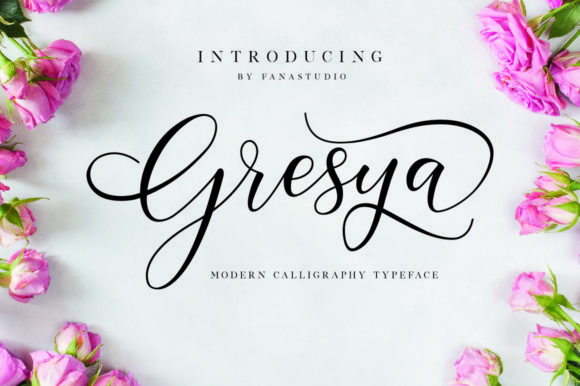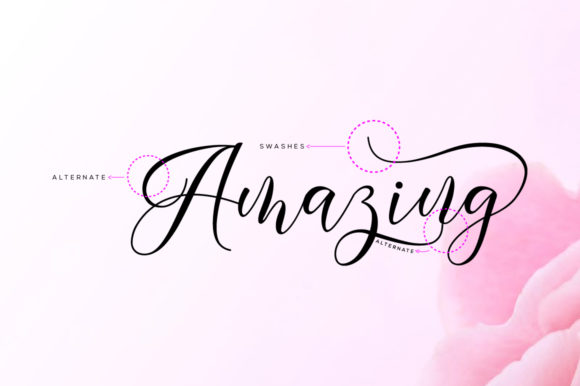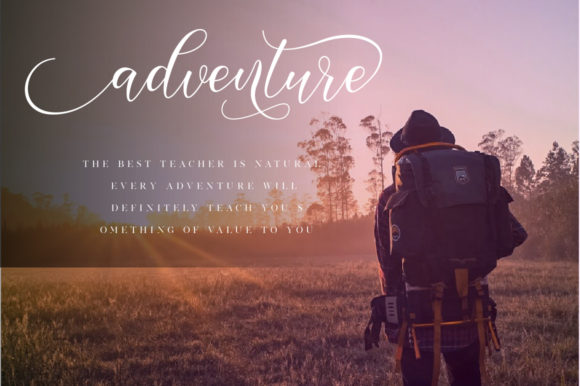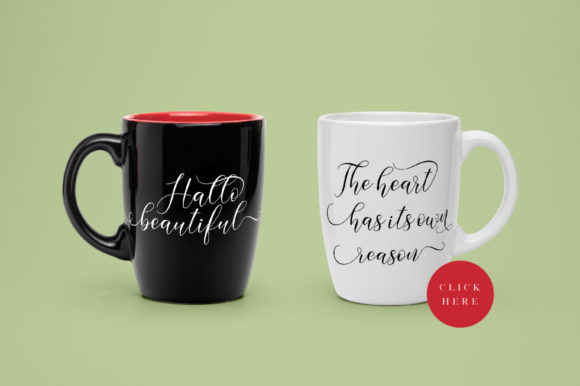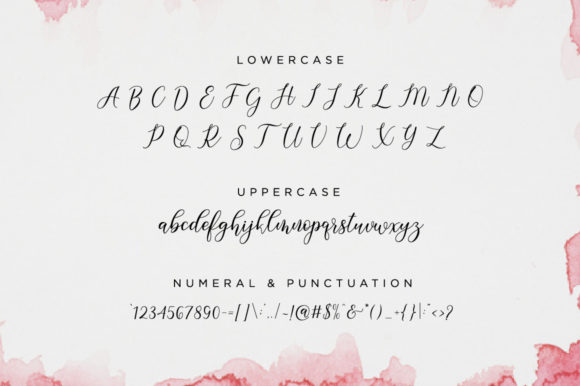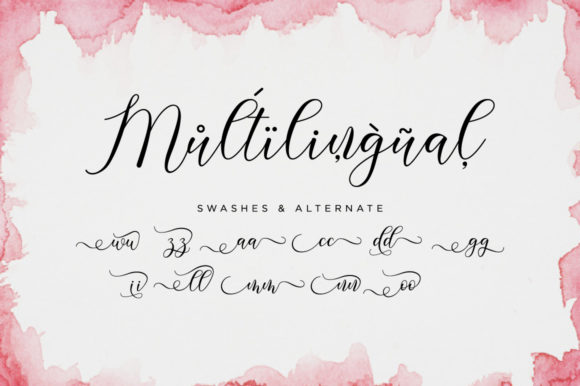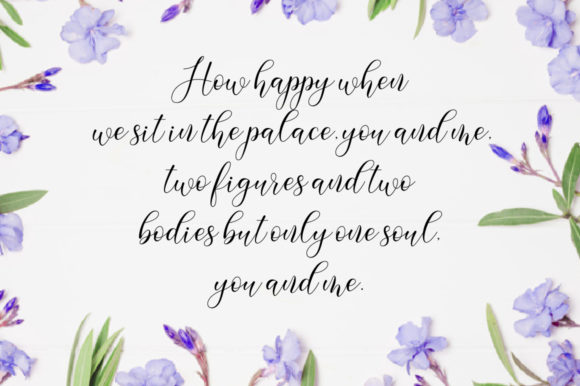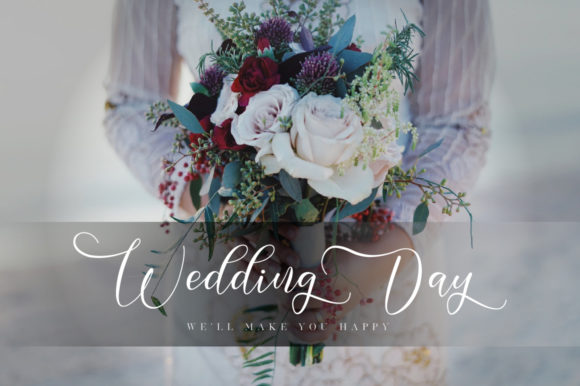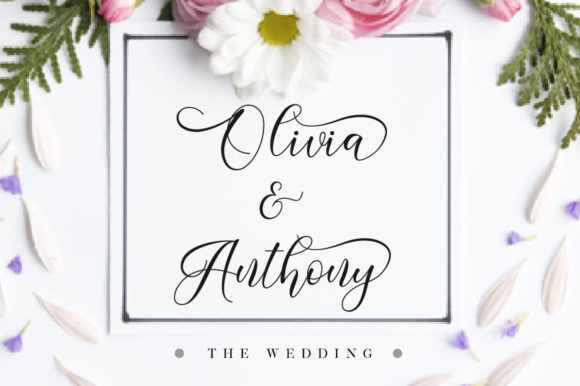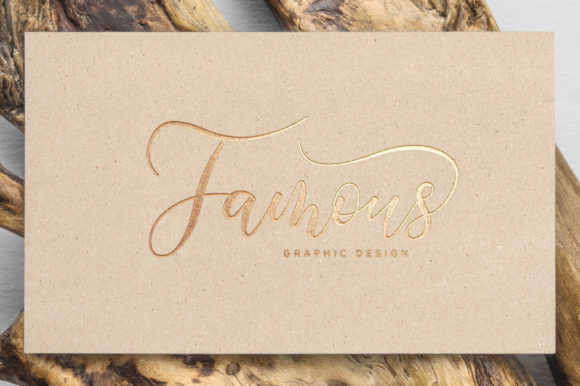
Gresya Script Font
About Gresya Script Font
The Gresya is a stylish feminine font. It includes amazing swashes which will add a feminine touch to your designs.